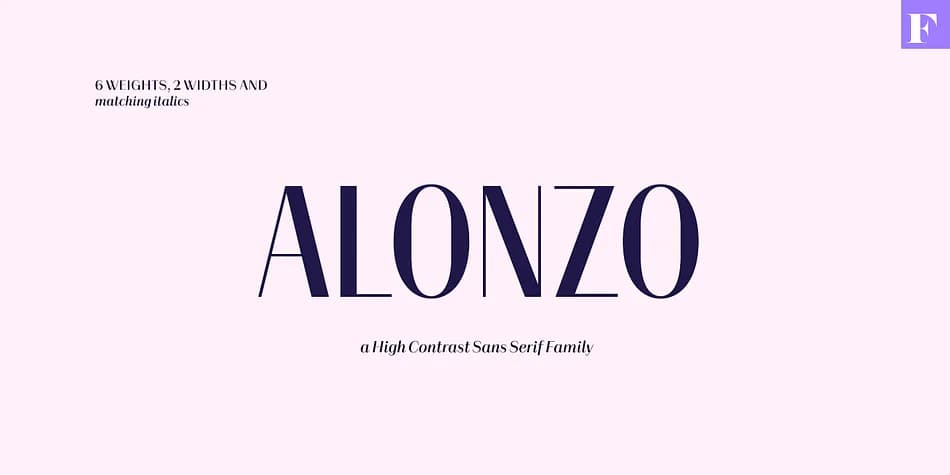
Alonzo, by Fenotype, is a high-contrast sans where the interplay of thick and thin strokes creates an elegant rhythm that feels both contemporary and refined. This typeface brings sophistication to the worlds of luxury brands, upscale restaurant menus, nightclub identities, and cultural institutions. The family spans six weights and two widths, each available in roman and italic, giving you 24 combinations to work with across different scales and contexts.
The Condensed version shines in display work. Picture it on luxury hotel signage, exclusive event posters, or boutique beauty packaging where visual impact needs to cut through. The Regular width covers wider ground, working naturally in long-form editorial layouts, product catalog pages, and even body text without losing its distinctive character. Under the hood, Alonzo includes oldstyle figures, small caps, ligatures, superior and inferior numerals, plus a stylistic alternate lowercase "a" with a more rounded bowl for moments when you need to dial in subtle variation.
Alonzo Font is a decorative font that shines as a display or heading face. Pair it with a clean sans-serif or serif font for body text β the contrast creates a clear hierarchy while the two styles stay balanced and easy to read.